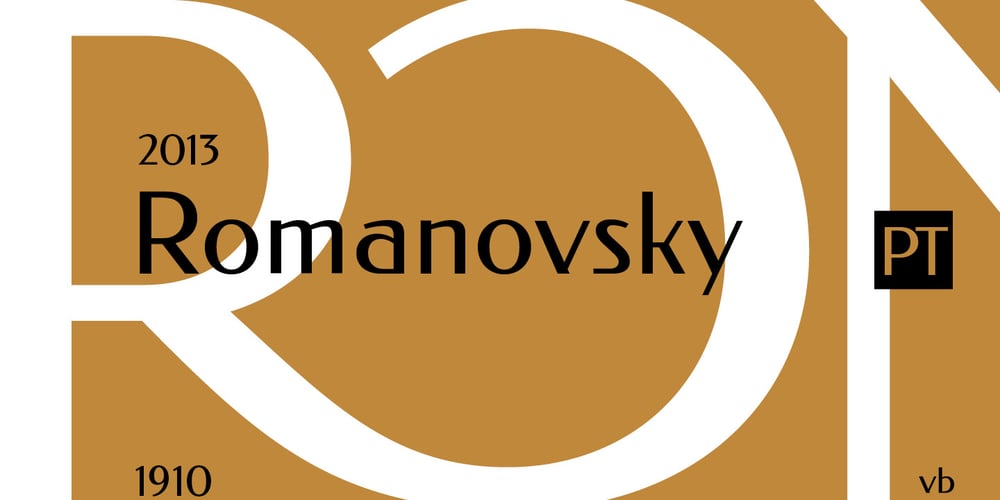
Romanovsky Font Family was designed by Vasily Biryukov, Olexa Volochay and published by ParaType. Romanovsky contains 2 styles and family package options. Romanovsky is the font developed on the base of samples from the catalogue of Osip Lehman foundry in Sankt Petersburg. Original Latin design that was used for Romanovsky can be found in Feder Grotesk by Jacob Erbar. The current digital font is not a scanned version of Lehman’s samples but a newly drawn typeface that differs from the original in many details. Romanovsky is a sans serif typeface with narrow proportions and noticeable contrast. It will be good for headings and display matters. Character set covers languages of Western and Central Europe and Cyrillic-based languages. It also contains around 20 ligatures of uppercase letters for the most frequent combinations. Designed by Vasily Biryukov. The bold weight was developed together with Olexa Volochay. Released by ParaType in 2013.